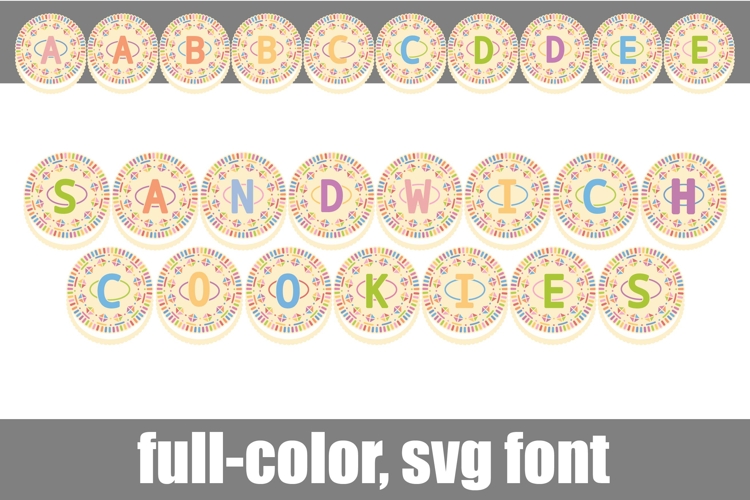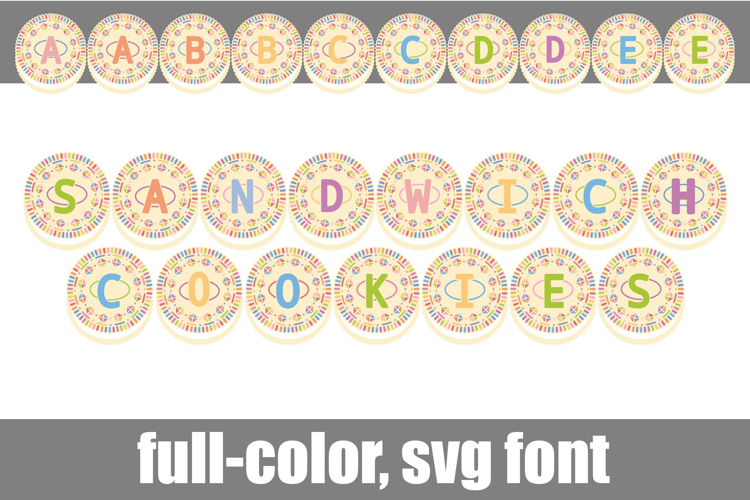
Sandwich Cookies Vanilla Color Font
This full-color font features a pastel rainbow of colors on frosted sugar cookies. There is an alt case of additional colors of each letter that you can access through your system or Silhouette's glyph map.